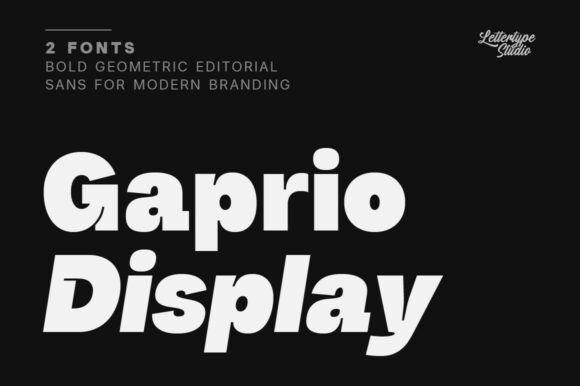
Gaprio Display Font Font – Free Download Introduction to Gaprio Display Font Font Fonts play a crucial role in design, and the Gaprio Display Font font is a typeface that brings both character and versatility…